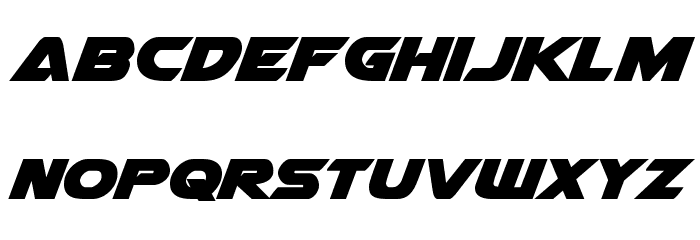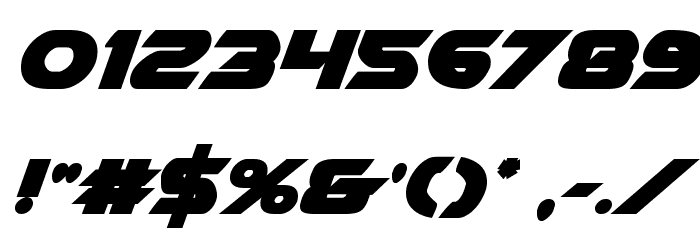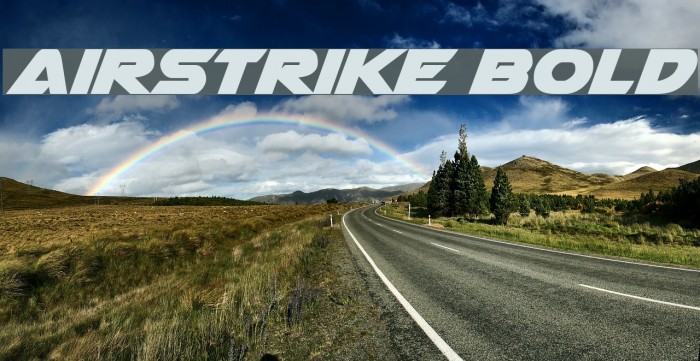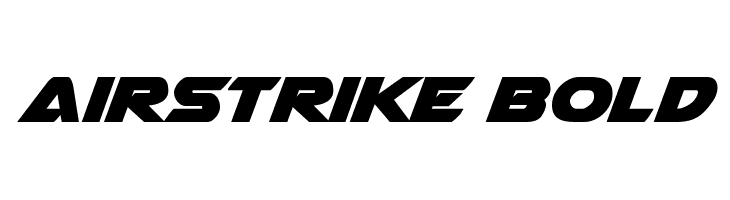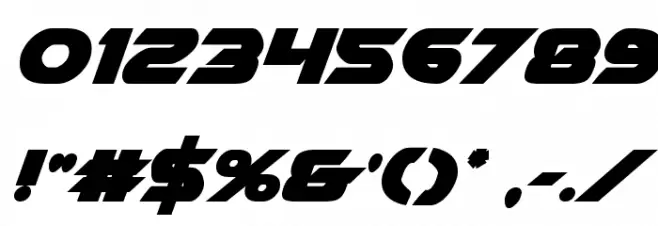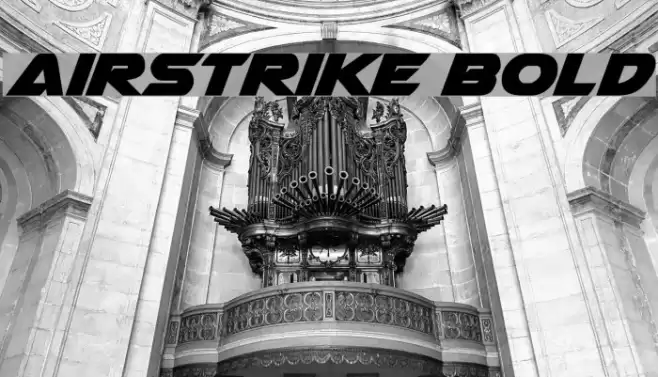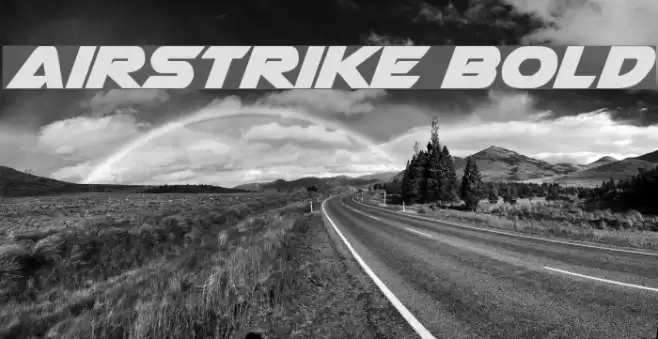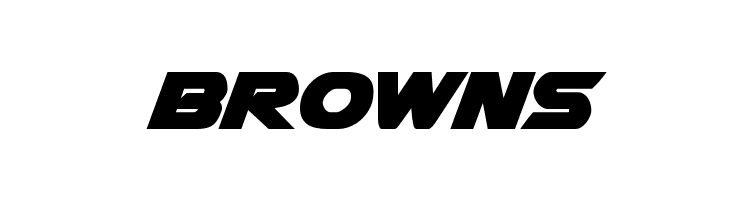
Airstrike Bold Font
This font exhibits a bold and dynamic style with a strong, angular presence. The characters are slanted, giving a sense of motion and speed, reminiscent of aerodynamic shapes. The strokes are thick and consistent, providing a robust and impactful appearance. The uppercase and lowercase letters maintain uniformity in their slant and weight, ensuring a cohesive look. The numerals and special characters follow the same design principles, making them easily recognizable and visually compatible with the alphabetic characters. This font is designed to stand out, making it ideal for attention-grabbing headlines or branding.
A bold, slanted font with a dynamic and aerodynamic style.
- Proposed Projects: Ideal for sports branding, automotive advertisements, action movie posters, and dynamic logo designs.